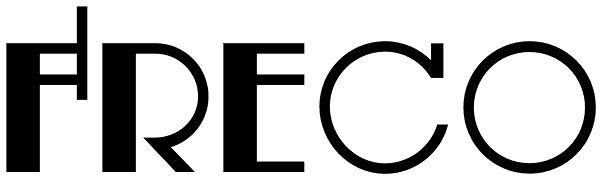
Freco
Freco is a celebration of the short but very productive life of Dutch designer and illustrator Fré Cohen (1903-1943). This font is mostly an assembled compilation of letters Fré created for a variety of print designs over the years, showcasing her...